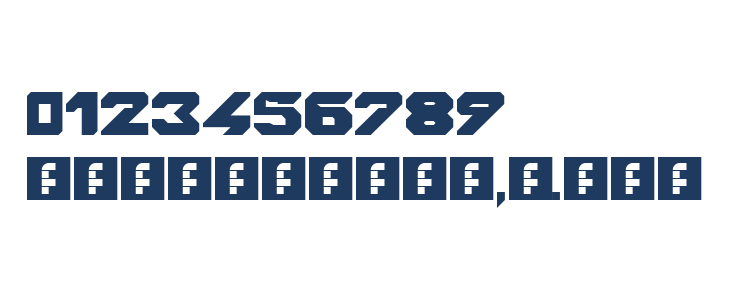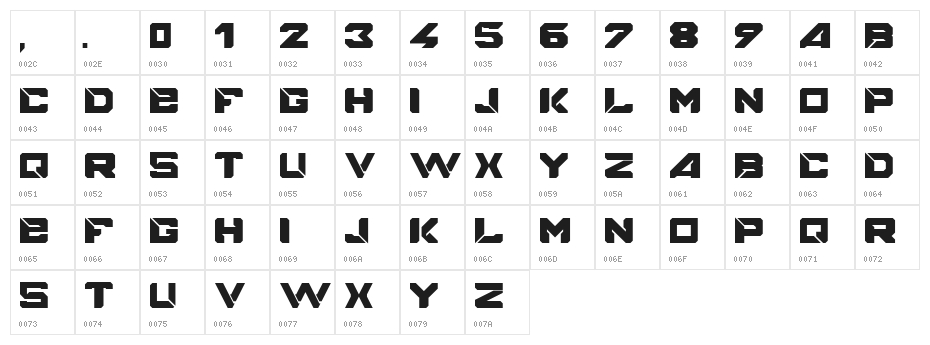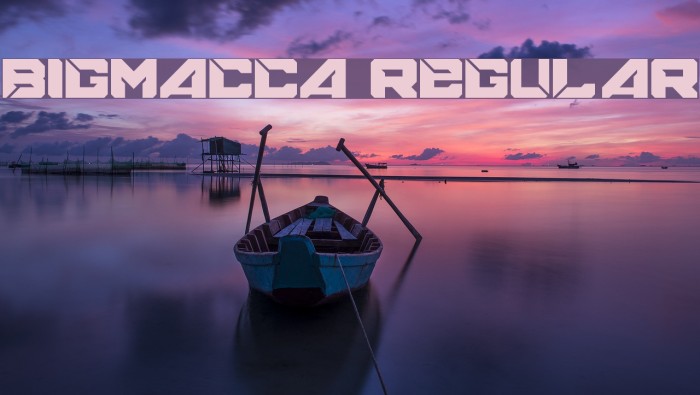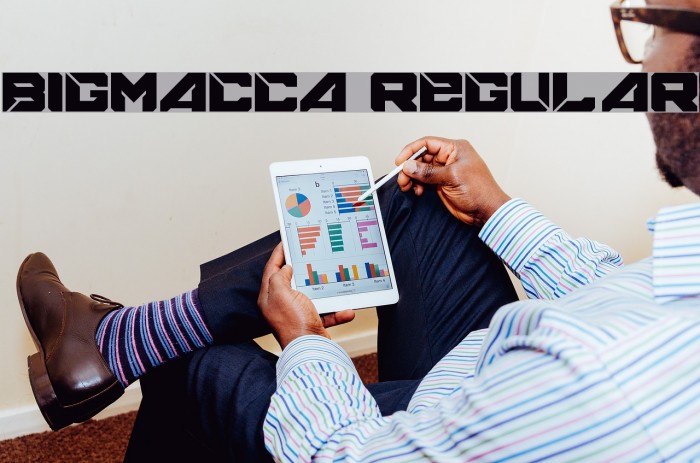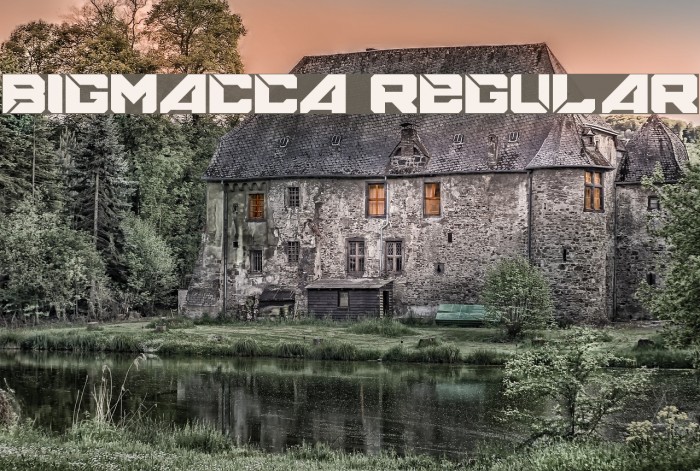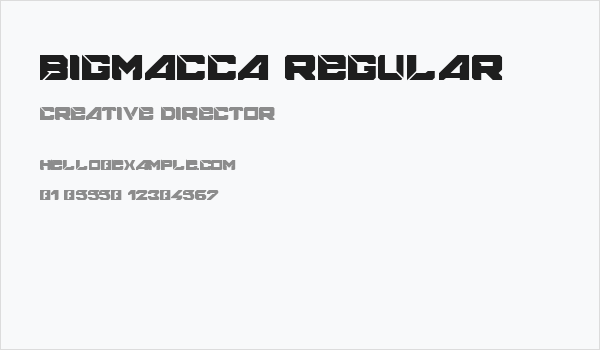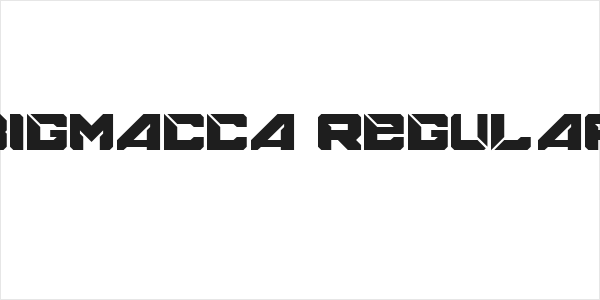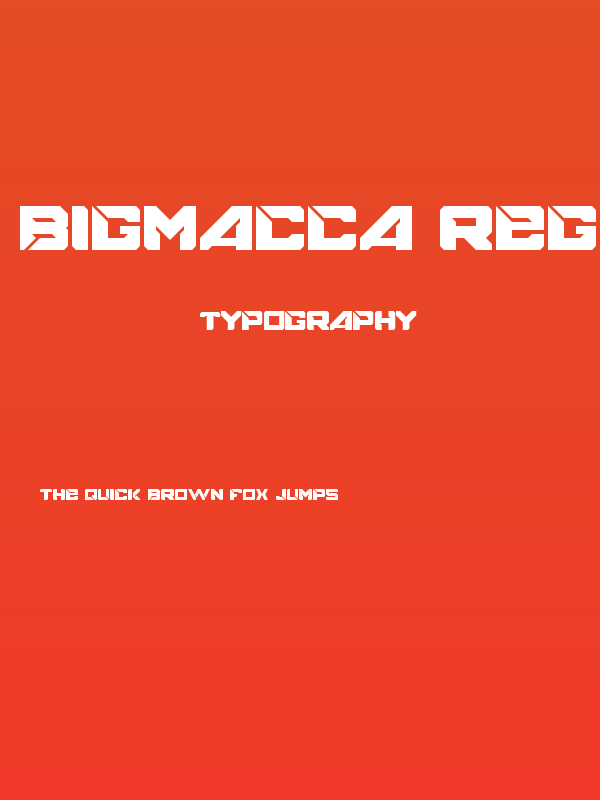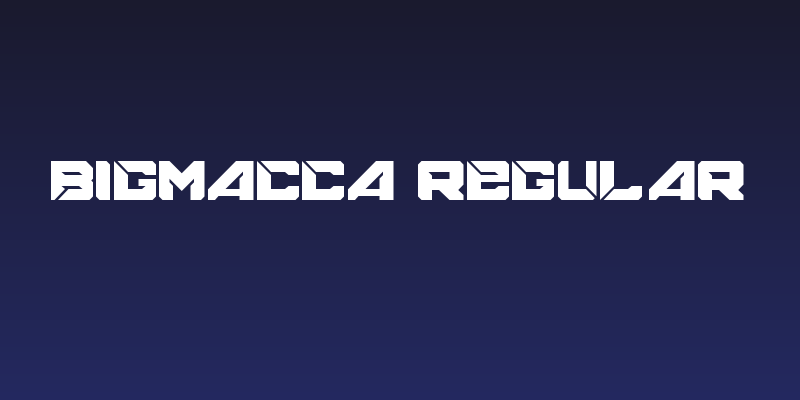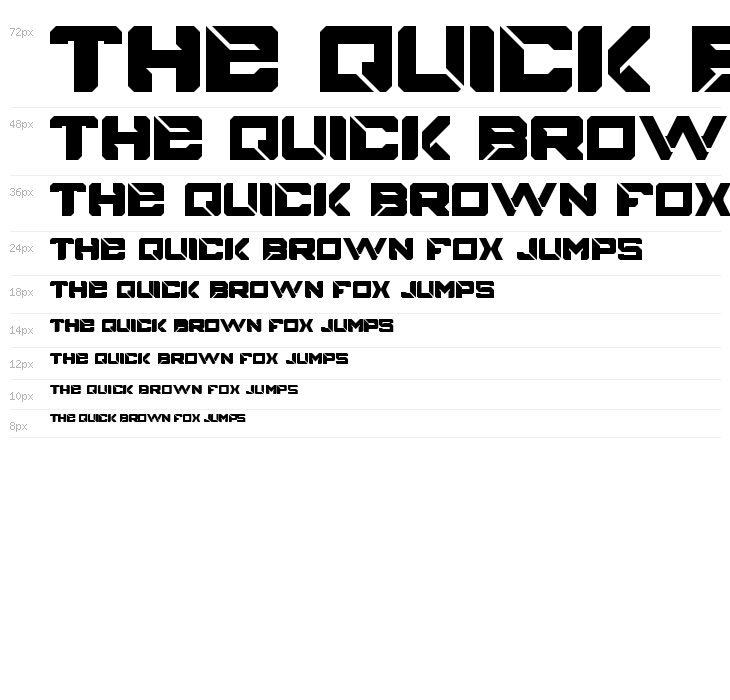
BIGMACCA Regular Font
BIGMACCA Regular Description
This font features a bold and geometric design with strong, angular lines and a futuristic aesthetic. The characters are constructed with sharp edges and a blocky structure, giving it a distinct and modern appearance. The uppercase and lowercase letters maintain a consistent style, emphasizing uniformity and precision. Numbers and special characters are designed to match the boldness and angularity of the alphabet, ensuring a cohesive look across all glyphs. The font's unique style makes it stand out, suitable for projects that require a strong visual impact.
| Proposed Projects | Ideal for branding, posters, video game graphics, and sci-fi themed designs. |